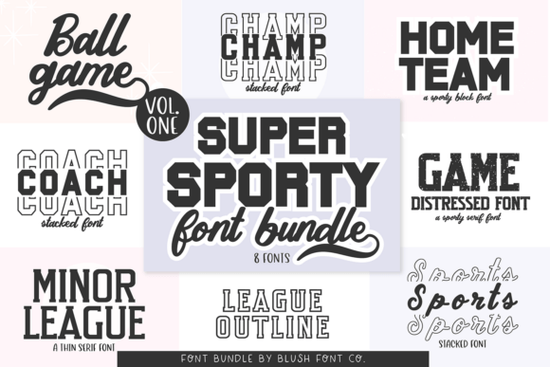
Looking for a set of typefaces that capture the energy of game day without looking like every other sports logo on the shelf? The Super Sport Bundle Font is a curated collection of 8 varsity and jersey-inspired fonts built for athletic, collegiate, and team projects. Whether you design for local leagues, school spirit wear, or just love that vintage ballpark feel, this bundle gives you bold lettering, jersey number styles, and classic collegiate shapes that work across football, baseball, basketball, hockey, and soccer themes.
But let’s be real – a lot of “sports font” bundles end up being just a few bold letters with serifs. This one actually covers the full range, from clean blocky lettering to slightly distressed retro styles. If you’ve ever tried to trace a jersey number by hand for a Cricut project, you’ll appreciate having ready-to-use characters that already look like they belong on a real uniform.
Which projects work best with these fonts?
These typefaces are not just for digital posters. People use them for:
- Team shirts and school spirit apparel – screen printing or heat transfer vinyl
- Game day graphics – social media posts, flyers, and banners
- Sports logos and mascot branding – especially for youth leagues or fantasy teams
- Custom merchandise – mugs, hats, stickers, and car decals
- Sublimation projects – tumblers, phone cases, and polyester apparel
- Cricut and Silhouette cuts – layered designs with numbers and team names
Because the bundle includes both modern and slightly vintage styles, you can use them for a clean, current look or something that feels like a throwback to 1970s baseball tees.
How do these compare to other display fonts on Creative Fabrica?
If you already checked out fonts like the Prime Varsity collection, you’ll notice that this super sport bundle leans heavier on jersey-specific details – think curved numbers, double outlines, and that distinct blocky “stitched” look. It’s less about decorative serifs and more about functional athletic lettering that reads clearly from a distance.
For someone who runs a print-on-demand store, that legibility is key. A font that looks cool at 72 pt might turn into mush on a 3-inch sticker. These fonts are built with bold strokes and open counters, so they stay readable even when you shrink them for chest logos or cap patches.
Can I use these for Cricut or sublimation projects?
Yes, and actually that’s one of the main reasons this bundle stands out. Many sports fonts come with thin lines or tight curves that are hard to weed with vinyl. These typefaces tend to have thicker strokes and generous spacing between letters, which makes cutting and layering much easier.
For sublimation, the clean edges transfer well onto polyester without smudging or blurring. Just keep in mind that some of the more distressed, vintage-style fonts in the bundle might need a slightly higher resolution when you print them for heat transfer – but that’s true of any textured typeface.
Pro tip: If you’re layering numbers on a shirt, use one of the solid slab fonts from the bundle for the base, then add a shadow or outline effect using the included number styles.
What about mixing these with other font families?
You can definitely pair this bundle with cleaner, less busy fonts for secondary text. For instance, if you use a bold varsity font for the team name, match it with something minimal like Girly Pop for the player name (yes, contrast works if you keep the mood energetic). For a more elegant league logo, try mixing with Gemstone display fonts for the tagline – just make sure the hierarchy stays clear.
If you’re designing for a school or club, you could also blend in a playful script like Rabbit Hole for event details. The key is to never use more than two or three typefaces so the sports vibe doesn’t get lost.
Is this bundle good for both retro and modern designs?
Yes. The collection includes sharp, clean athletic fonts that look fresh for contemporary esports or modern team logos, while a few of the numbers and letters have that worn-in, slightly rough edge that feels like a vintage baseball program. That range is useful if you design for multiple clients or if you want to offer both classic and modern mockups in your shop.
Practical checklist before you download
If you decide to grab the Super Sport Bundle, here’s a quick list to help you get the most out of it:
- Check which of the 8 fonts includes alternate characters (some have extra ligatures or number variations)
- Test each font at small sizes (24–36 pt) to see how they read on apparel mockups
- For Cricut: use the solid variant first, then apply offset or outline in your design software
- Pair the bundle with a simple sans-serif for secondary text (avoid serif fonts that compete)
- Save your 3 favorite fonts as a “sports kit” so you can reuse them quickly
Next time you’re building a team identity or a sports-themed sticker set, these fonts will save you the headache of drawing jersey numbers from scratch. Just drop them in, adjust the spacing, and your design will already look like it came from a professional uniform supplier.